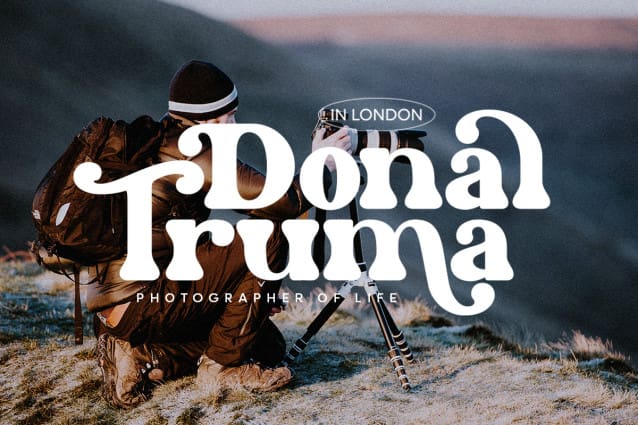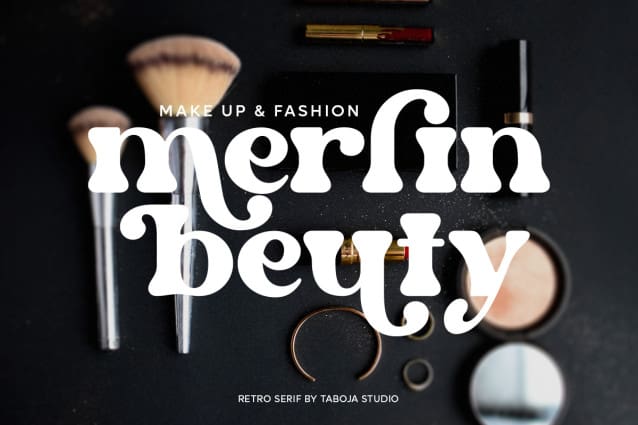
Dream Home Retro Font
Dream Home Retro Font, is a retro display serif font that exudes classic charm and bold character. With its design inspired by retro styles, this font brings a touch of elegance and evokes the past. Each letter is meticulously designed with careful attention to detail and proportion, giving it a visually appealing and unique appearance.
Dream Home Retro is perfect for projects that require a vintage touch, such as posters, logos, packaging and promotional materials that aim to create a nostalgic and sophisticated atmosphere. This font will add a special touch to your designs and captivate viewers with its retro look and distinctive character